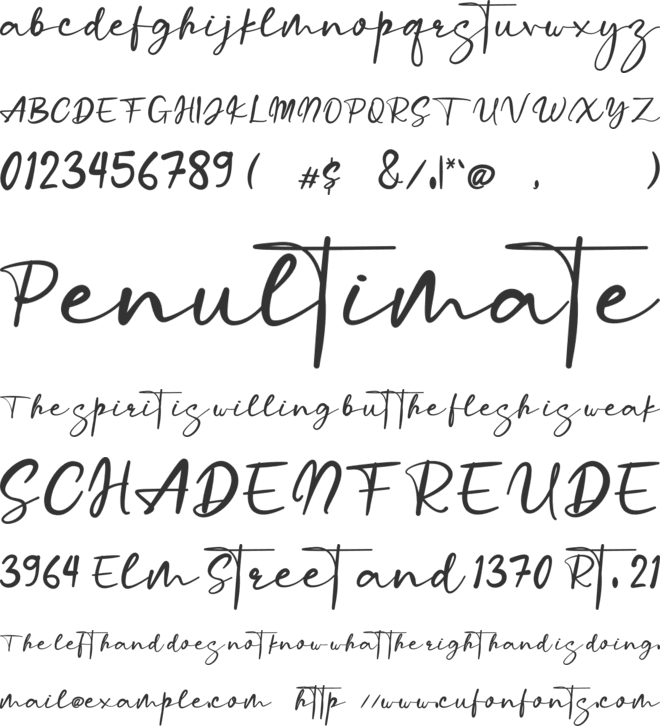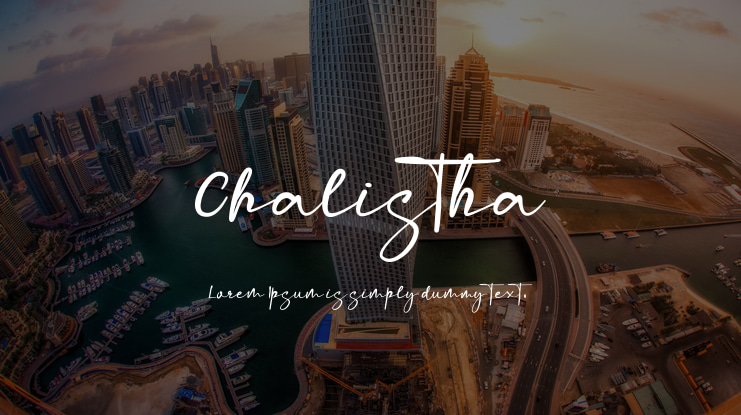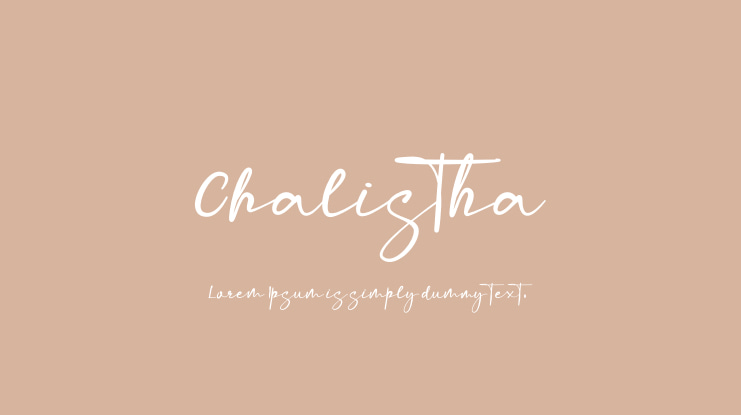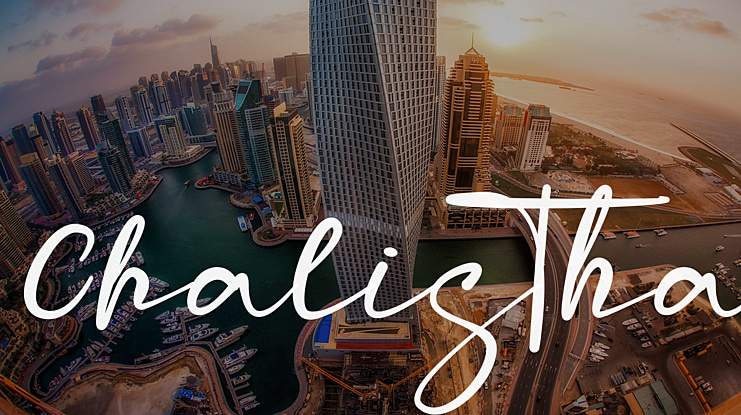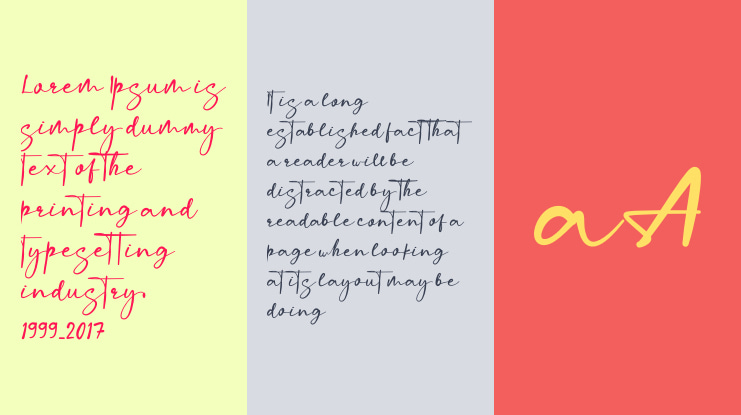
Chalistha Font
Chalistha is a free-flowing script font created for packaging products, invitation cards, flyers, mockups, event posters, and anything else that requires high-quality vibes. It has a beautiful and balanced character, that fits well with the large design pool. This font is PUA encoded which means you can access all of the glyphs and swashes with ease!